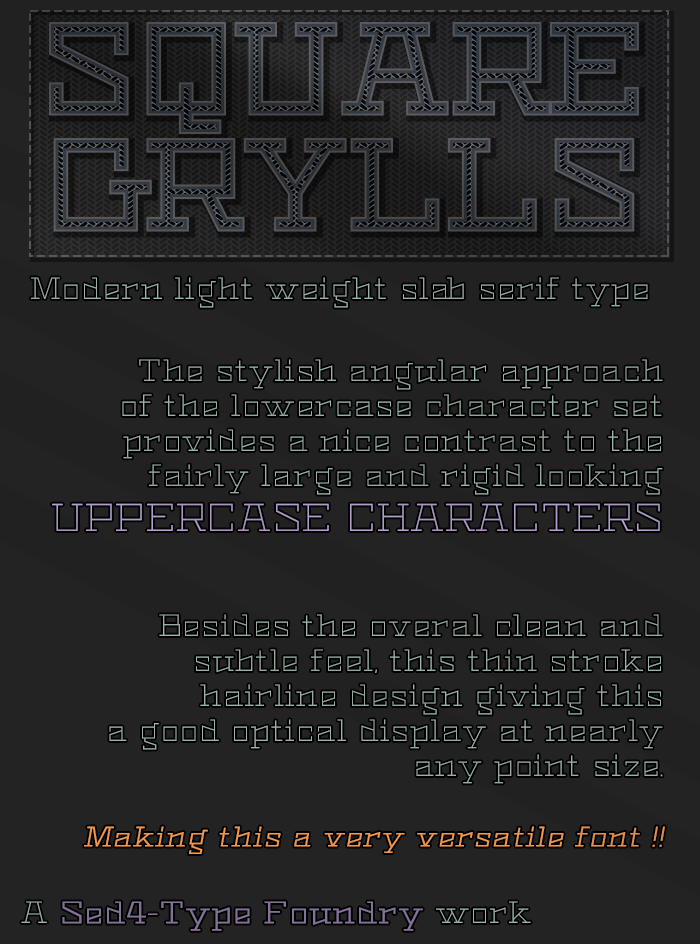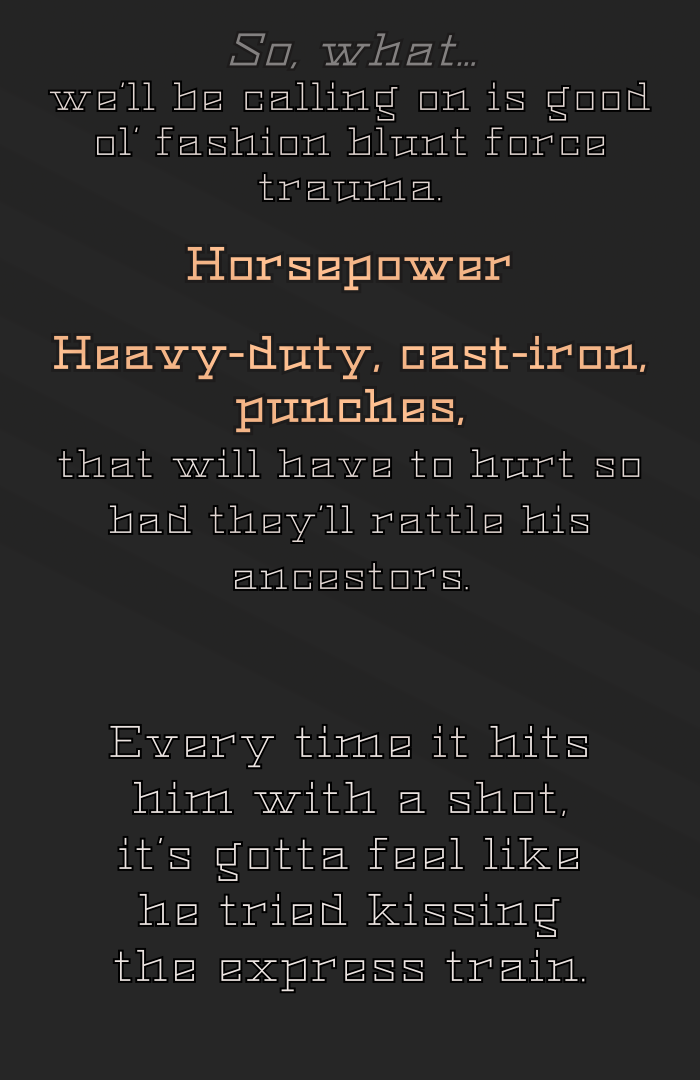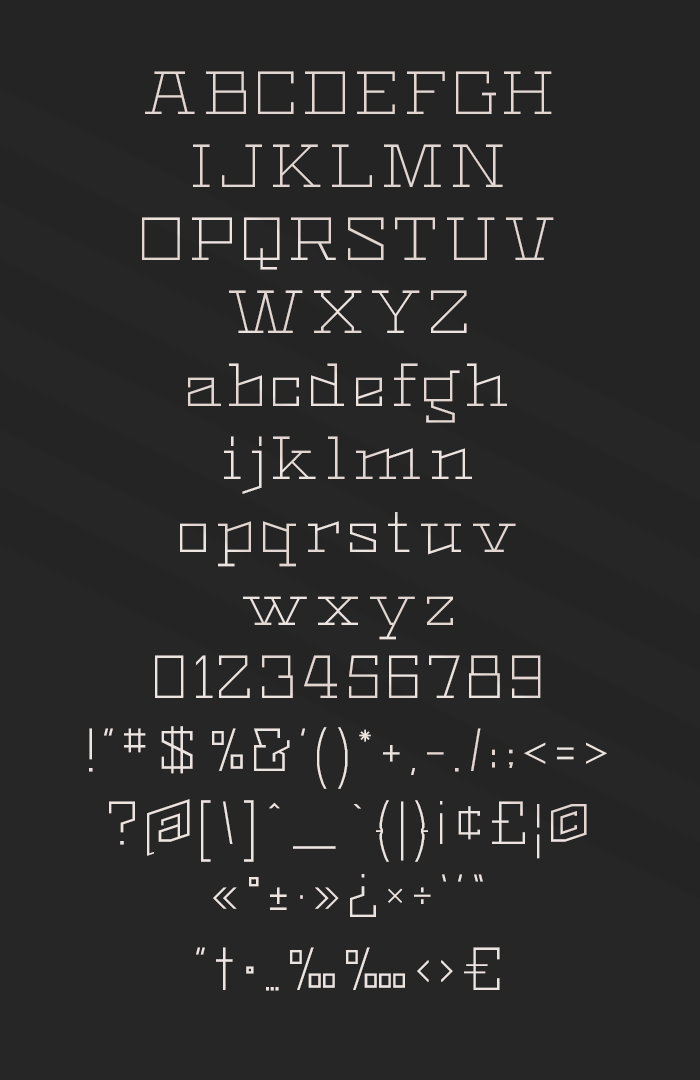
Ok, a little speacial note: When I first started this I decided to handle the design as if it was a monospace font to prevent hours of kerning this. Later on (lord knows why) I changed this approach to manual, but turned out to be a bummer after all so I changing it back to my first approach handling it as was monospaced, but due to the damage done in the meanwhile now spacing will look wrong in certain spots, and gonna keep changing for a while because right now I am undoing all the damage that I've done yesterday. When I am confident I fixed everything (or most) I will change license to downloadable.